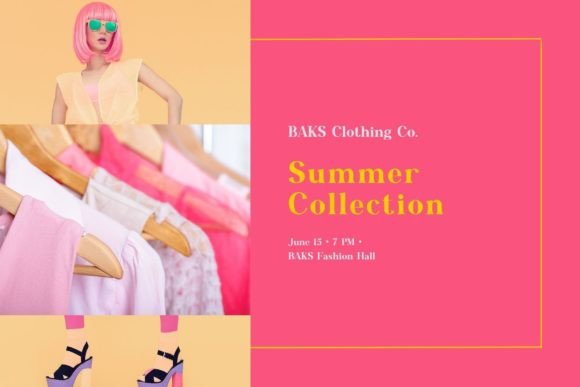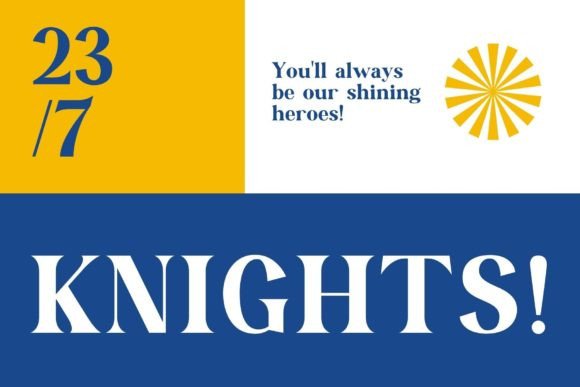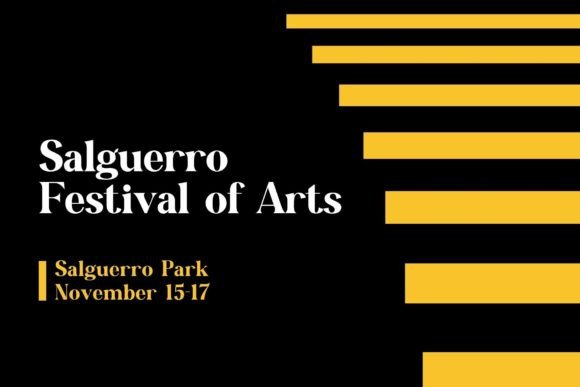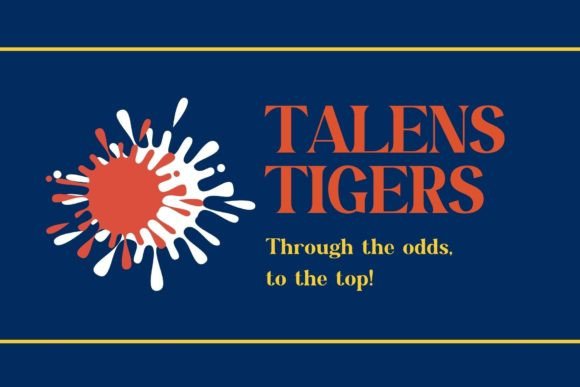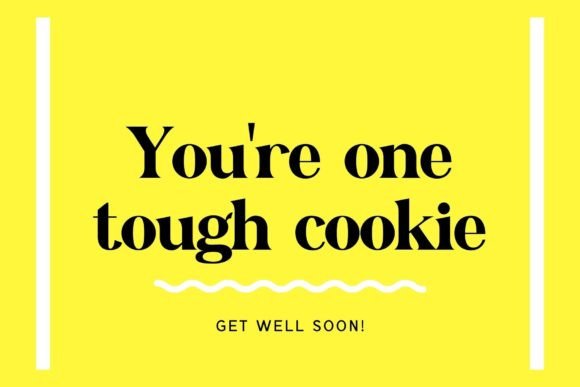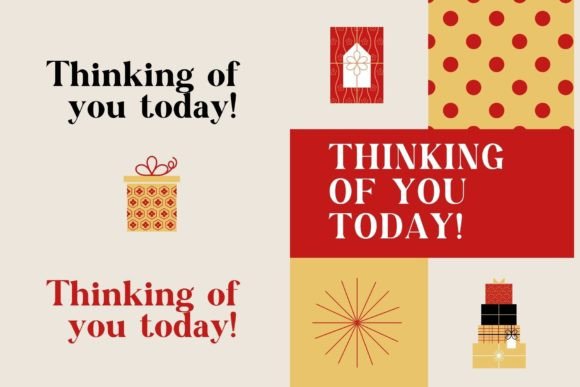
Introduction to Schindler Font
Have you ever been in the middle of a creative project, staring at a blank page or screen, searching for the perfect font to bring your vision to life? That’s exactly where the Schindler Font comes in – a beautiful series of letters designed to elevate your work and make it truly unforgettable.
As a designer, you know how much of a difference a high-quality font can make in your work. That’s why we’re excited to introduce you to the Schindler Font, a modern and elegant font that’s perfect for any creative project. With its transparent background and clean lines, this font is a valuable addition to any design resource.
Key Features of Schindler Font
- High-quality design for creative projects, suitable for various applications such as posters, flyers, and brochures.
- Transparent background, allowing for seamless integration with any design element.
- Unique characteristics include elegant and sophisticated letterforms, perfect for adding a touch of luxury to any design project.
- Can be used for both digital and print designs, making it a versatile design resource for creative professionals.
Honest Review: Schindler Font
I recently stumbled upon the Schindler Font, and I must say it’s been a game-changer for my creative project. As a designer, I’m always on the lookout for high-quality fonts that can elevate my work to the next level. And let me tell you, this font delivers.
- ✨ High-quality design: The Schindler Font is meticulously crafted with attention to detail, making it perfect for any creative project.
- ✨ Transparent background: This font features a transparent background, allowing for seamless integration with any design element.
However, there are a few limitations to consider. ⚠️ The font can be a bit heavy-handed at times, making it difficult to read in small sizes. Additionally, the font family is relatively small, limiting the number of styles available.
Overall, I’m thoroughly impressed with the Schindler Font. Its high-quality design, free download, and transparent background make it an invaluable resource for any designer. While it may have some limitations, I believe the benefits far outweigh the drawbacks. If you’re looking for a reliable and stylish font for your creative project, I highly recommend giving the Schindler Font a try.
Tips for Getting the Most Out of the Schindler Font
Use the Schindler Font for high-quality, creative projects. Download the font for free and experiment with different font sizes, colors, and styles to create a unique design. For a transparent background, use the font on a white or light-colored background.
The Schindler Font is ideal for design projects that require a high-quality, free download font. Use it for logos, business cards, posters, and other creative projects. The font’s transparent background makes it perfect for overlaying on images or videos.